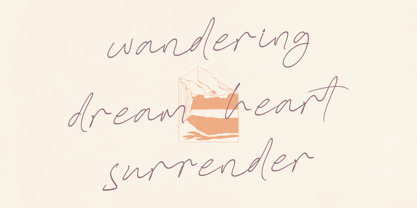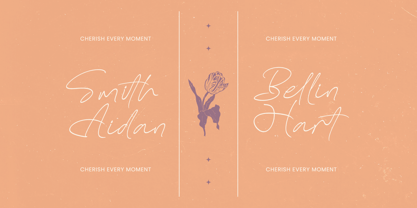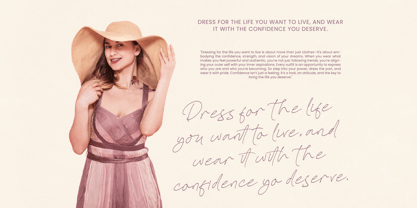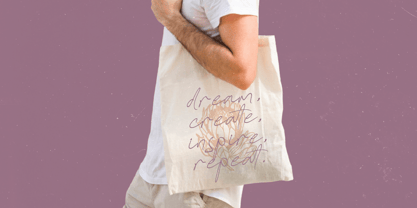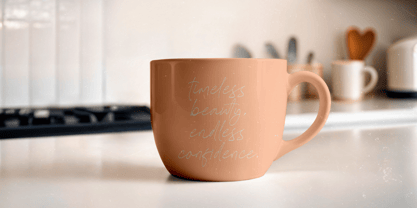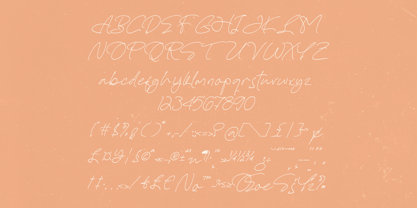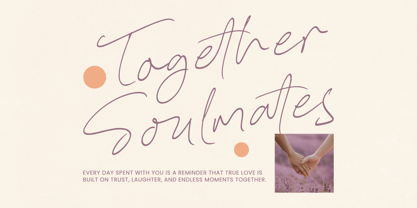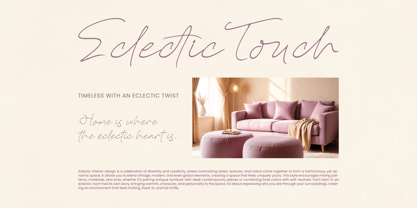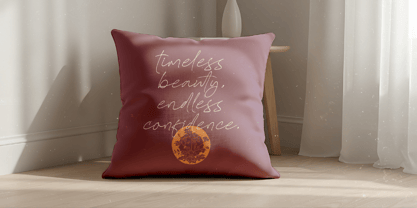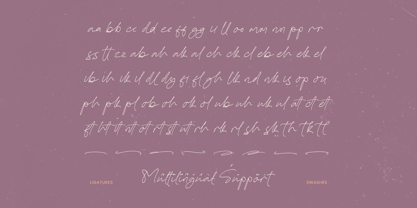
Yessiou Saphire
by Stylishtype Studio
The Yessiou Saphire Font Family was designed by Heru Utama Putra and published by Stylishtype Studio. Yessiou Saphire contains 2 styles and family package options. More about this family
Yessiou Saphire is a delicate handwritten script font inspired by natural ink strokes and expressive signature lettering. Designed with smooth flowing lines and elegant movement, this typeface captures the beauty of authentic handwriting while maintaining a refined and modern aesthetic. Featuring 74 ligatures and 8 swashes,Yessiou Saphire allows seamless letter connections and graceful finishing touches, making every word feel organic and personal. Ideal for branding, wedding invitations, social media content, packaging, feminine logos, stationery, quotes, and lifestyle designs, this font delivers warmth, softness, and sophistication across both print and digital projects. Its handwritten ink style makes it perfect for designers seeking a romantic, natural, and effortlessly stylish look.